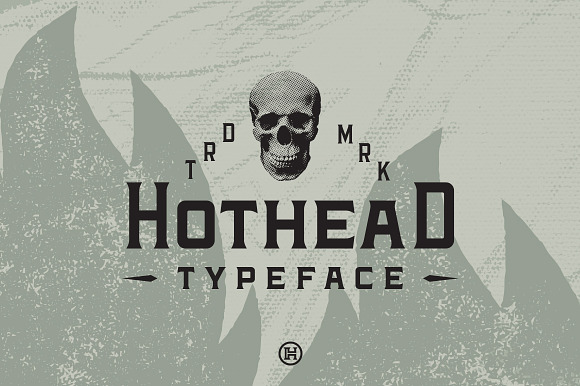
Hothead Western Font
This western typeface is perfect for cowboy brands, saloon signage, western movies, ranch logos, country music venues, rodeo graphics, barbecue restaurants, frontier themes, and authentic Wild West design projects.
What makes this font exciting is its frontier boldness combined with cowboy authenticity, offering designers a gunslinging typeface that captures the spirit of the Wild West while delivering saloon-tough sophistication and frontier justice appeal.
The Hothead Western font family includes regular, bold, distressed, sheriff, and outlaw variations, providing complete western design solutions for creating authentic frontier visual identities.
Whether you're developing cowboy culture brands or crafting Wild West experiences, Hothead Western Font Free Download brings exceptional frontier atmosphere and western authenticity to every application. This rugged typeface combines traditional western typography with contemporary cowboy design, creating letterforms that evoke adventure and frontier spirit. The font's western construction and saloon-ready details make it perfect for brands seeking immediate cowboy recognition.
Hothead Western Font features carefully crafted frontier styling with authentic cowboy character that conveys genuine western expertise. Each character has been designed with dusty proportions and gunslinger elements that enhance the Wild West aesthetic. The font's western qualities make it particularly effective for country brands and frontier applications.
Professional designers choose Hothead Western Font for projects requiring authentic cowboy credibility and western atmosphere. Its frontier heritage makes it exceptionally well-suited for western restaurants, country music venues, and cowboy lifestyle brands. The font's versatile western variations allow designers to control the frontier intensity, from subtle cowboy elegance to full Wild West celebration.
The complete Hothead Western Font package offers extensive western ornaments and frontier decorative elements that enhance the cowboy aesthetic. Advanced saloon features allow designers to create complex western effects with multiple frontier-inspired options. This comprehensive cowboy toolkit ensures designers have everything needed to create authentic western communications that celebrate the enduring legend of the American frontier and Wild West adventure.